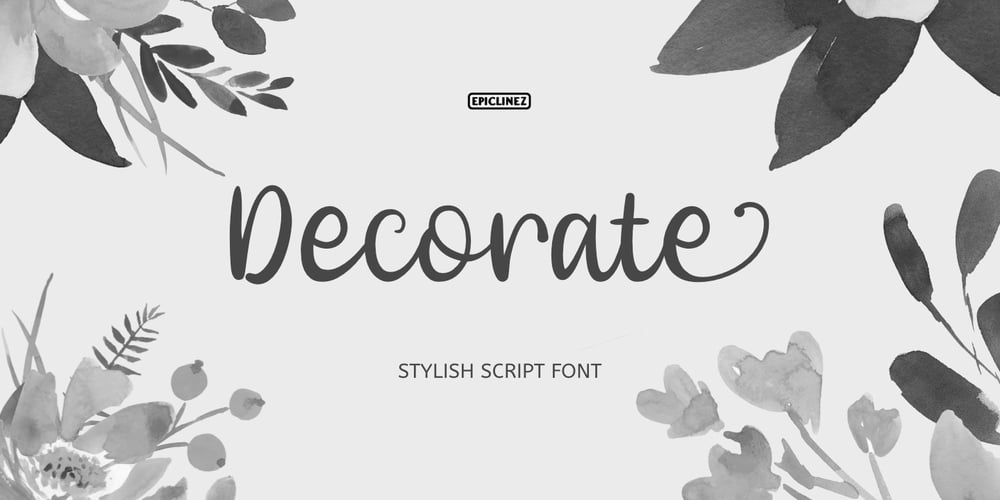
Decorate
Decorate font
Decorate Font Family was designed by Aldy Sidik and published by Epiclinez. Decorate contains 1 styles and family package options. Decorate is a stylish handwritten font. It features fancy alternates. It will elevate a wide range of design projects to the next level, be it branding, headings, wedding designs, invitations, signatures, logos, labels, and much more!This font is PUA encoded which means you can access all of the cute glyphs and swashes with ease! It also features a wealth of special features including alternate glyphs and ligatures.